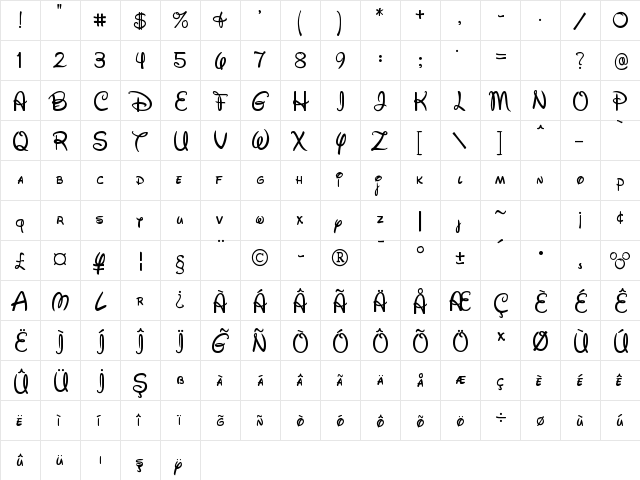
TrSah Walt Disney Script Regular
Design Context for TrSah Walt Disney Script Typeface
TrSah Walt Disney Script flows with the natural rhythm of handwritten lettering, making it ideal for designs that call for warmth and personal expression.
Font Pairing: Combine TrSah Walt Disney Script with a simple geometric sans for maximum contrast — the tension between flowing curves and clean structure is a classic typographic pairing.
Pro Tip: Use TrSah Walt Disney Script for short runs of text — names, titles, or taglines. Extended body copy in script faces tires the eye quickly.